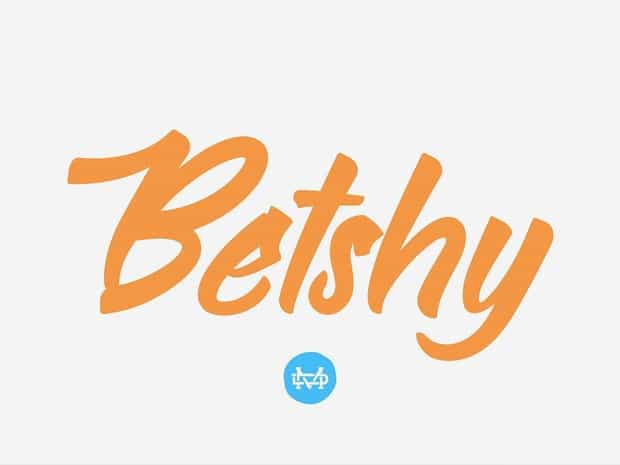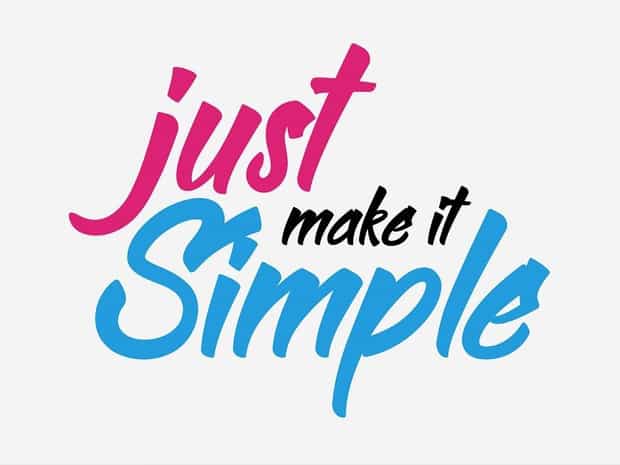
Discover Bethsy Script Font, part of the Brush Various collection—a versatile and unique font perfect for adding a personal touch to your projects. Download it for free and enjoy crafting designs with style, from invitations to social media posts. This font is available exclusively for personal use, giving you the freedom to create without limits. Unlock your creativity with Bethsy Script Font today!
Bethsy is a Modern bold script and this perfect for all your designs project, event and more..